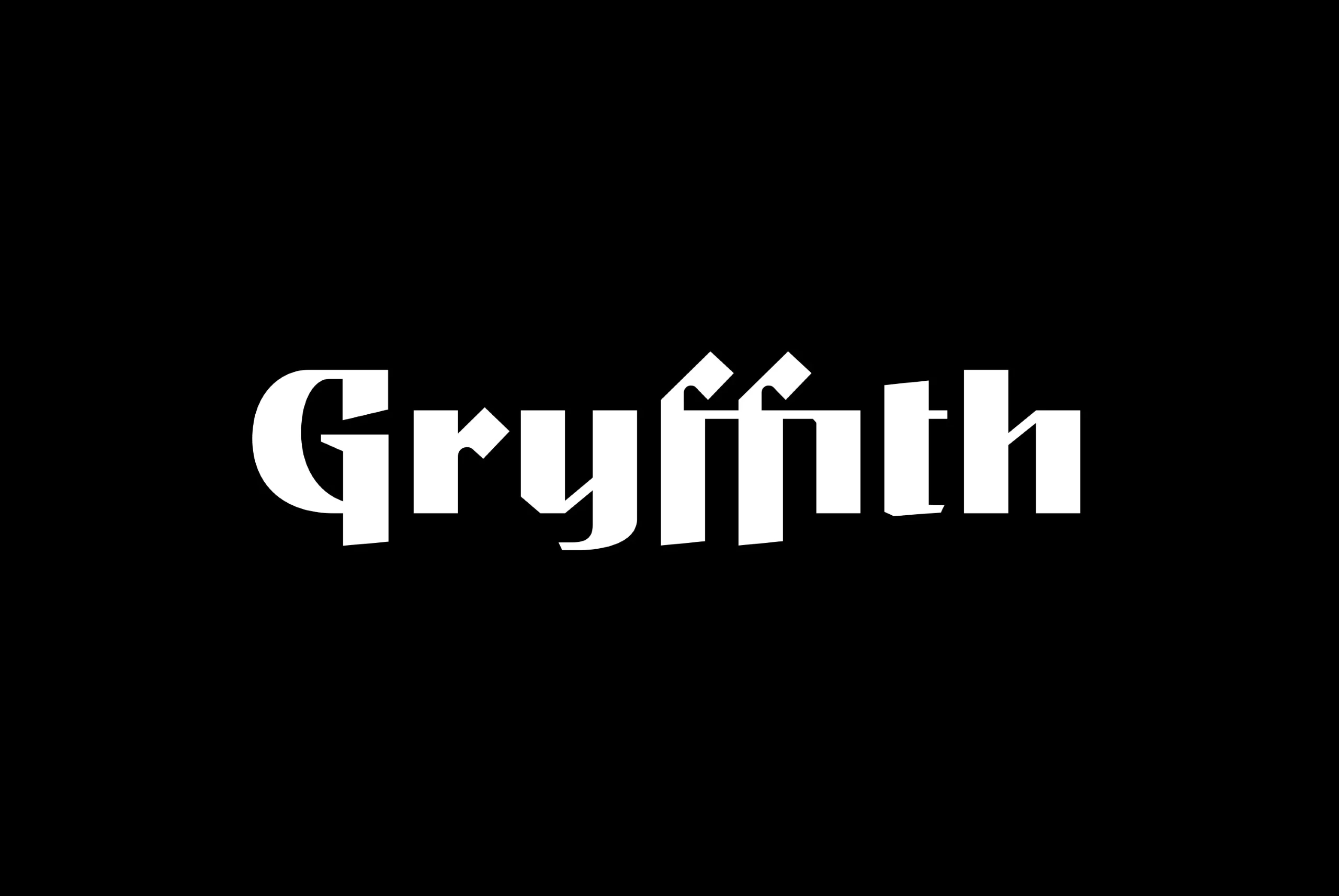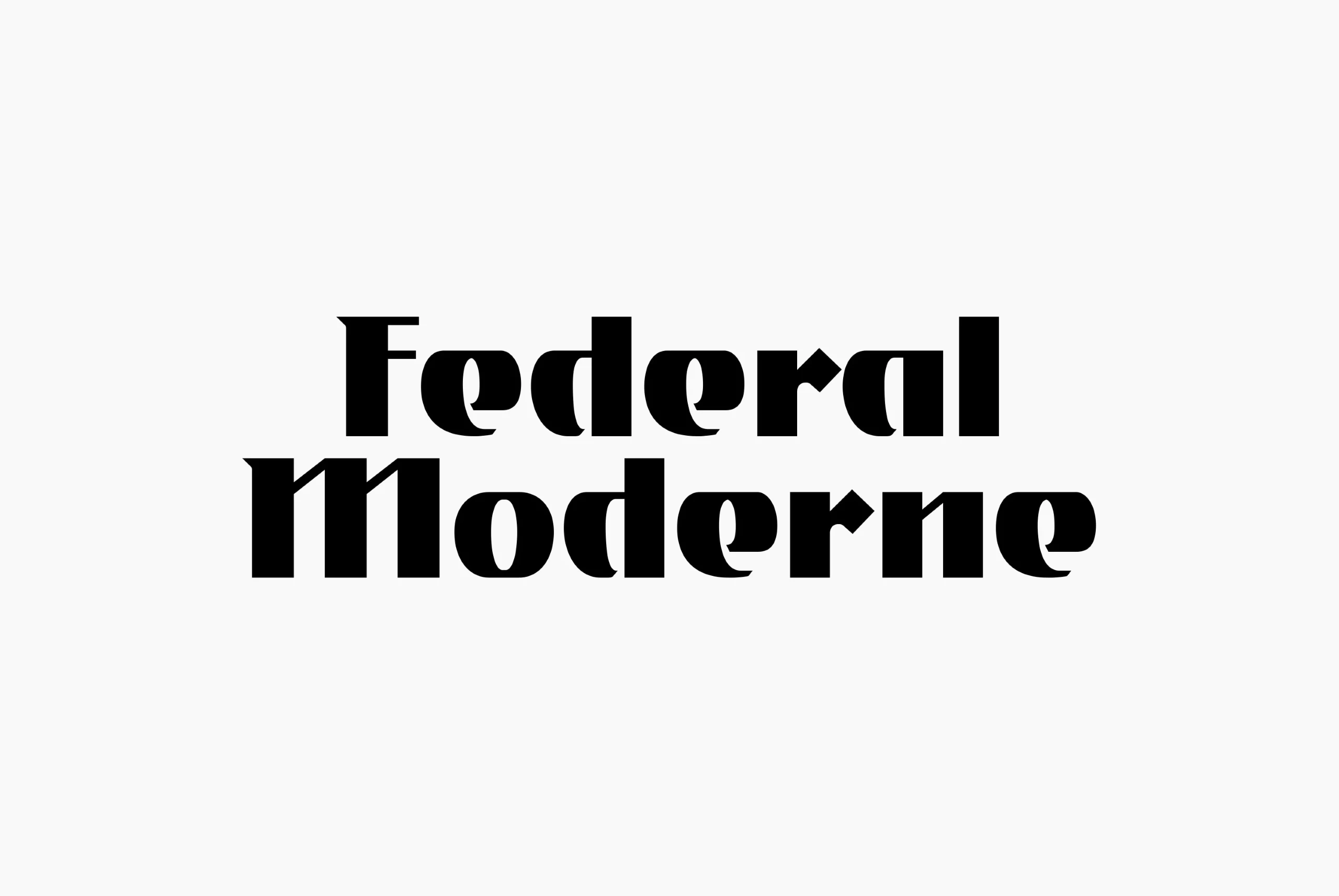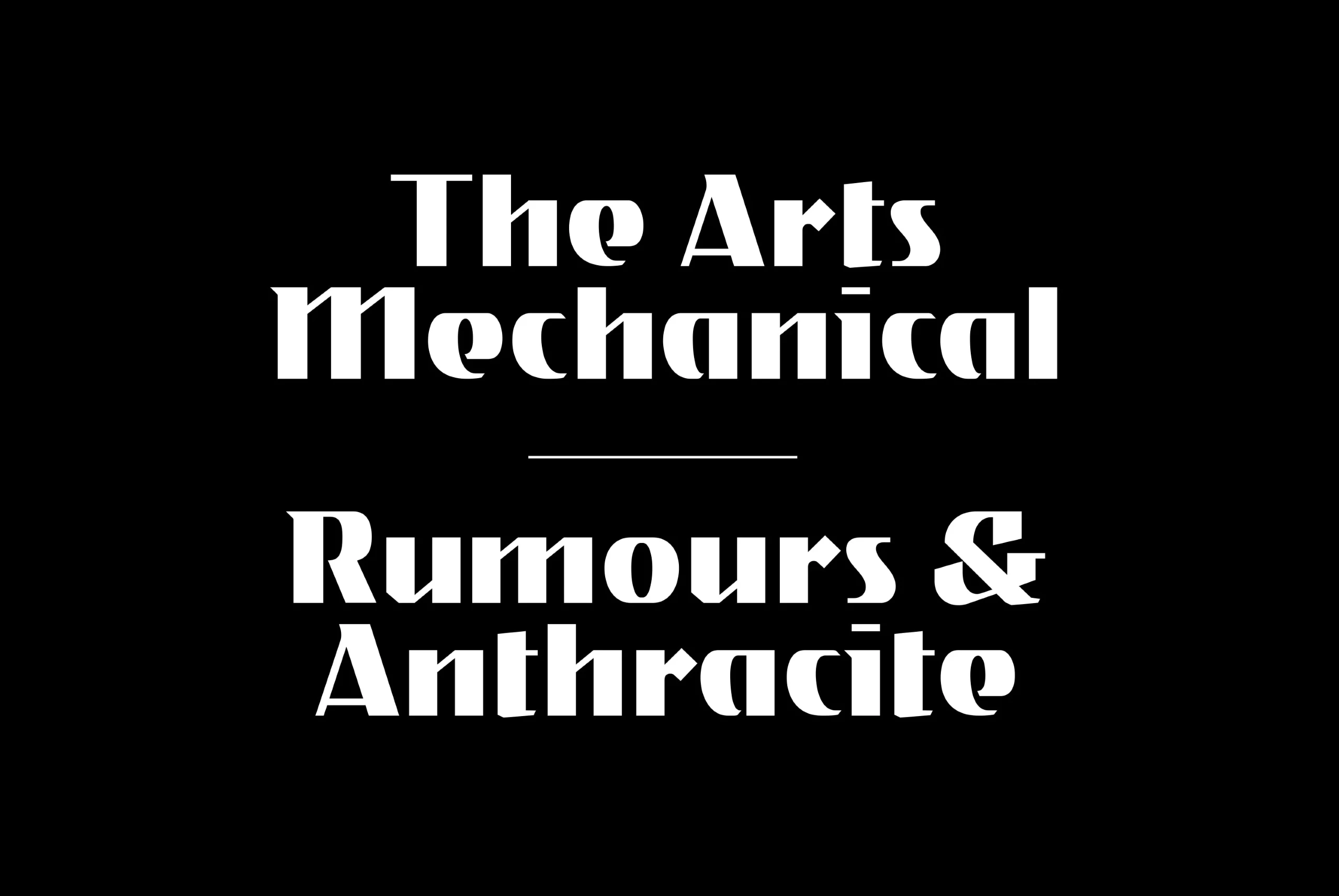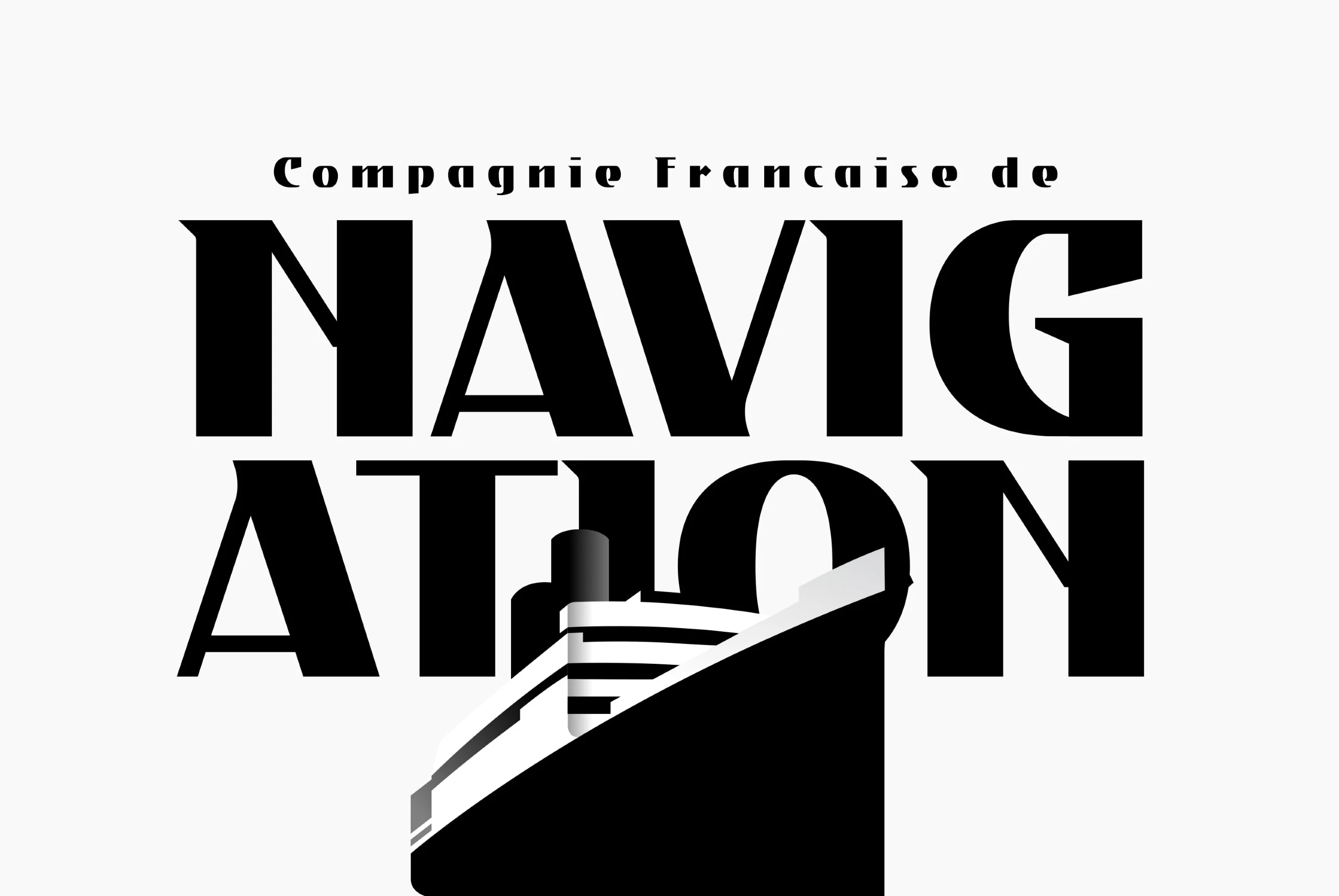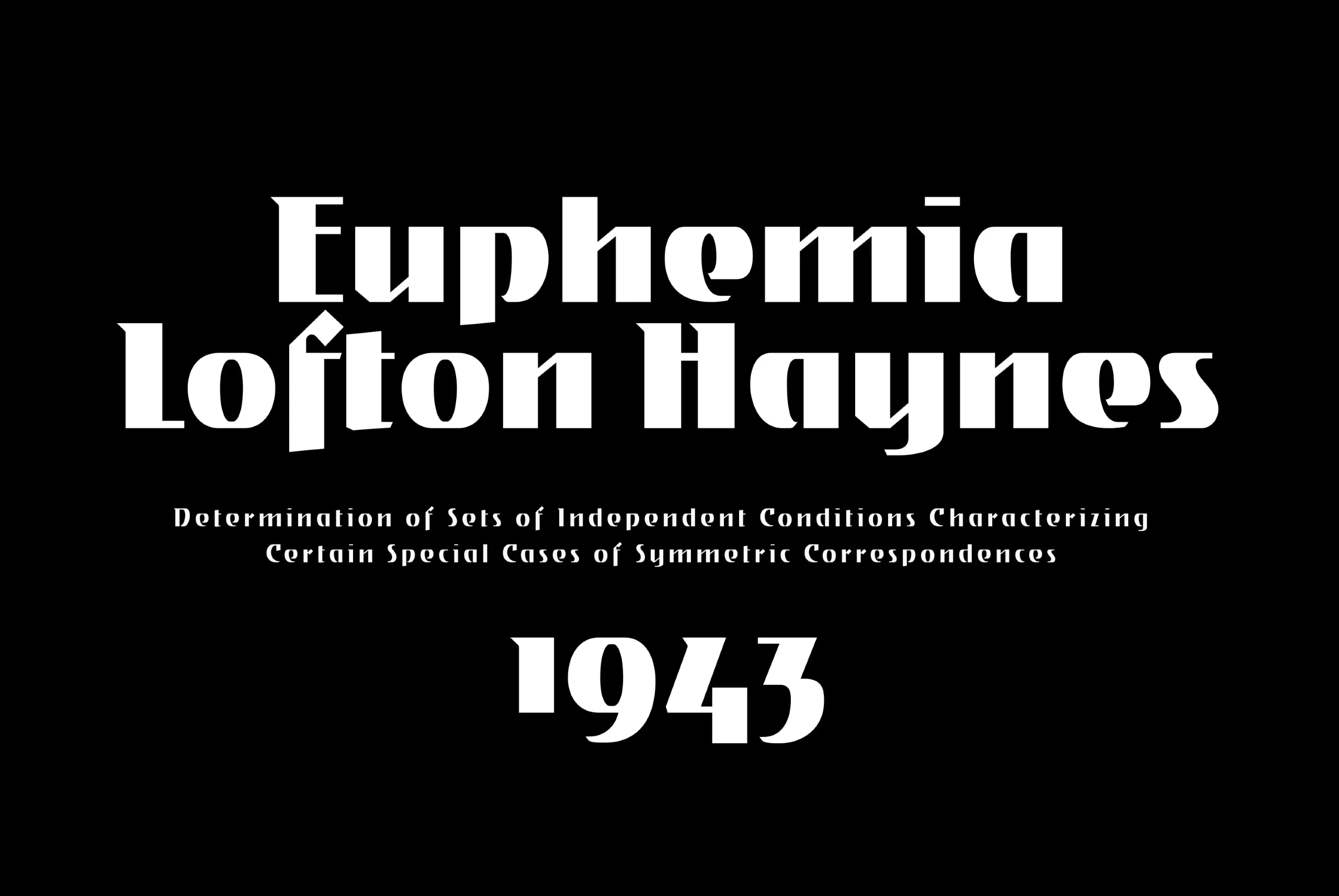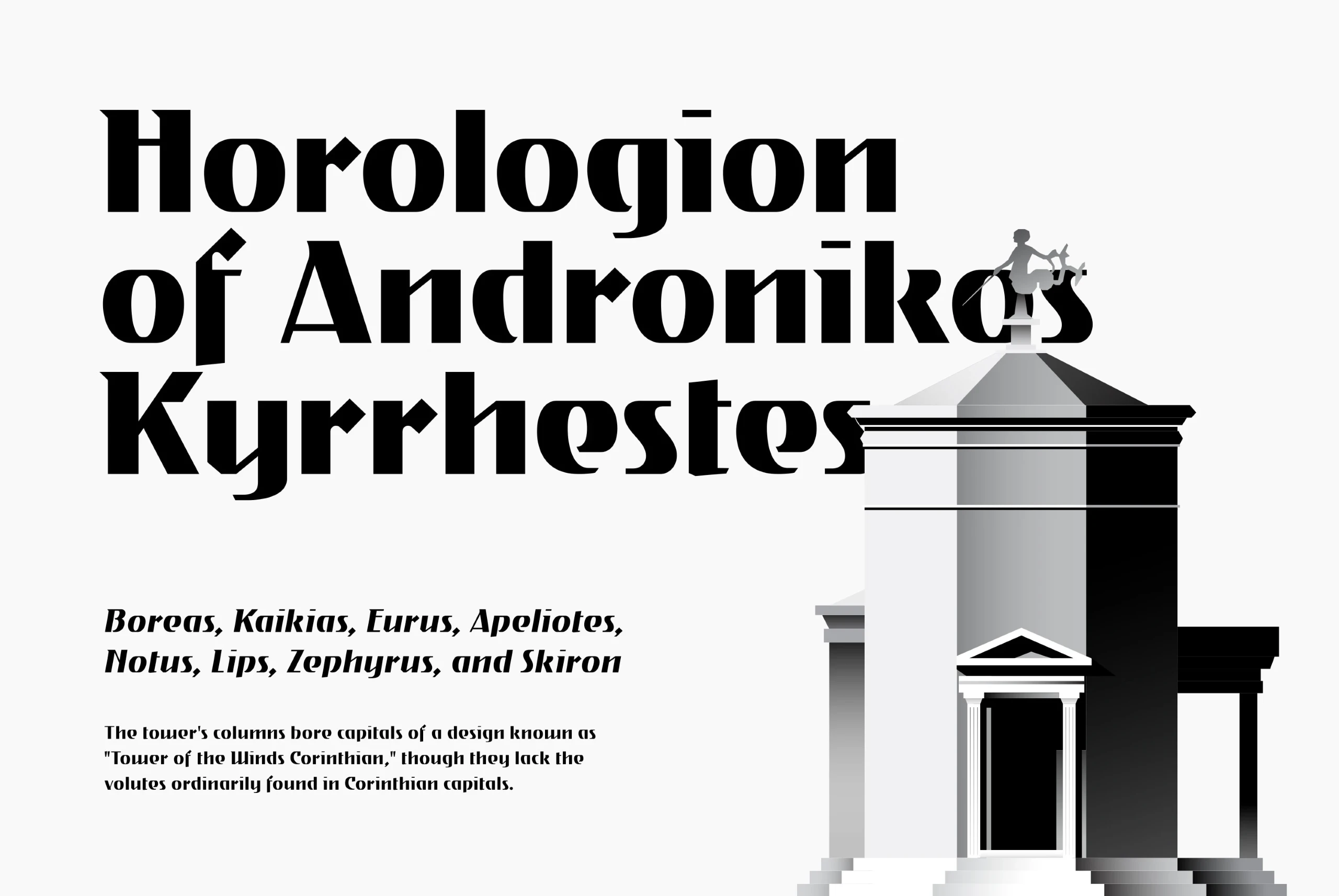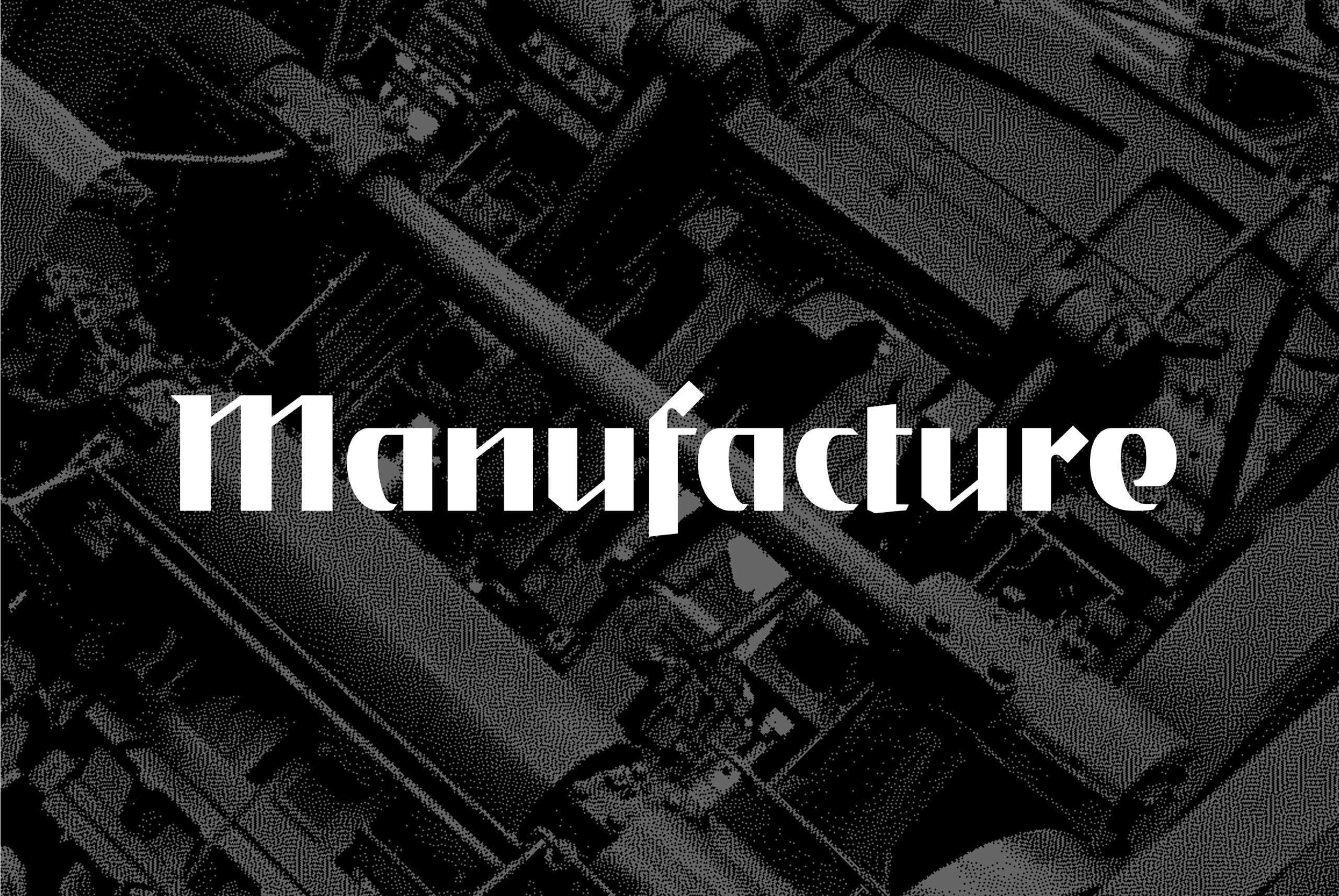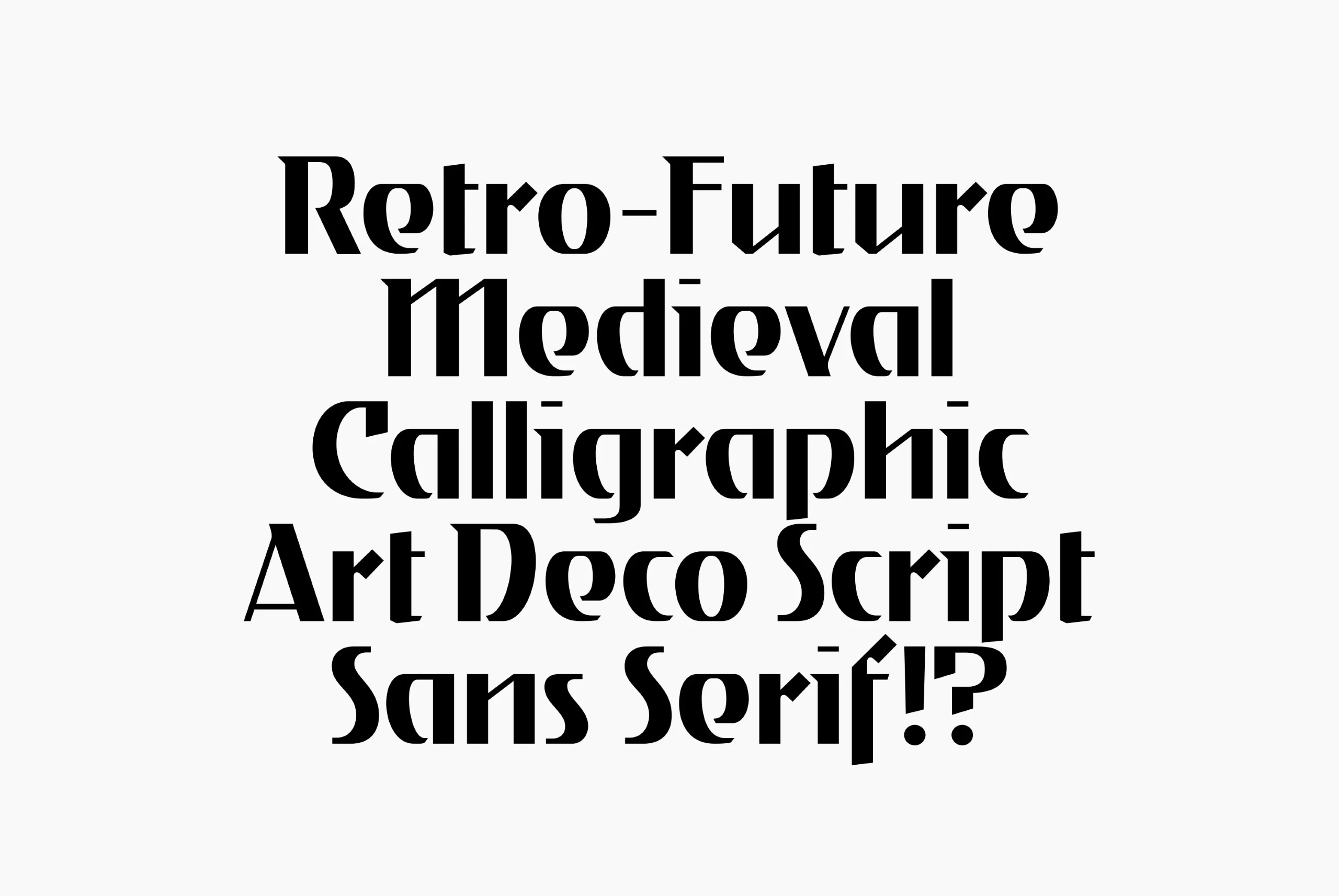
Gryffith
Gryffith Font Family
Gryffith is a display typeface blending the form of a sans-serif with the rhythm of handwriting and the heft of blackletter. A unique choice for logos, headlines, and posters.
seven Weights in Latin Script
Gryffith font by Connary Fagen Fonts — the word “Gryffith” in white, upright, high-contrast sans-serif letters with sharp serifs and a blackletter feelGryffith font by Connary Fagen Fonts — the words “Federal Moderne” in a heavy upright serif typeface with high contrast and sharp serifsGryffith font by Connary Fagen Fonts — the words “The Arts Mechanical” above a short line, and below it “Rumours & Anthracite”, all in an upright serif display typeface with high contrast and sharp terminalsGryffith font by Connary Fagen Fonts — the words “Compagnie Francaise de NAVIGATION” in a high-contrast sans-serif, with a stylized ship emerging from the bottom of the letters T and I.Gryffith font by Connary Fagen Fonts — the name “Euphemia Lofton Haynes” in a bold, upright serif typeface, with a scientific paper title and the year “1943” below it in a smaller, italic serif typefaceGryffith font by Connary Fagen Fonts — the words “Horologion of Andronikos Kyrrhestes” in a bold serif, and below them “Boreas, Kaikias, Eurus, Apeliotes, Notus, Lips, Zephyrus, and Skiron” in an italic serif, next to an illustration of a classical tower with a figure on topGryffith font by Connary Fagen Fonts — the word “Manufacture” in a high-contrast serif typeface with a blackletter feel, set against a dark, textured background of industrial machineryGryffith font by Connary Fagen Fonts — the words “Retro-Future”, “Medieval”, “Calligraphic”, “Art Deco Script”, and “Sans Serif!?” in a heavy upright display sans-serif with calligraphic strokes.